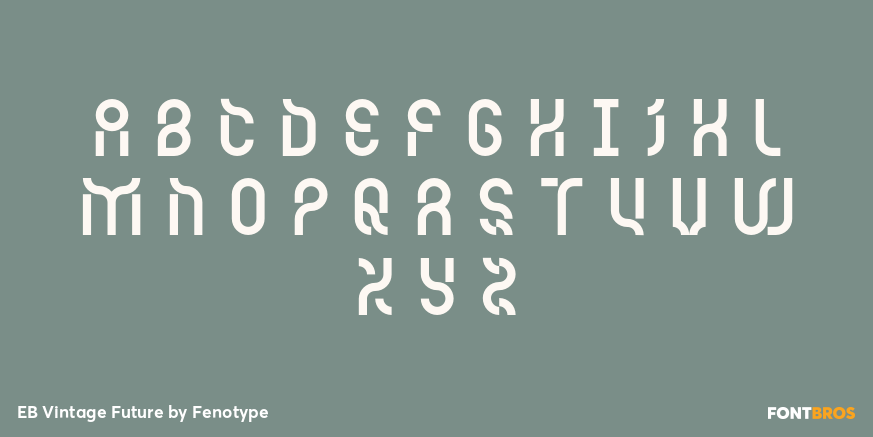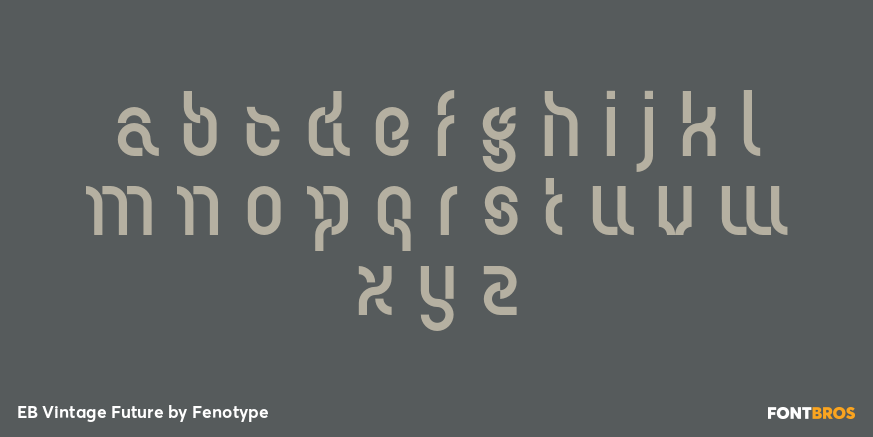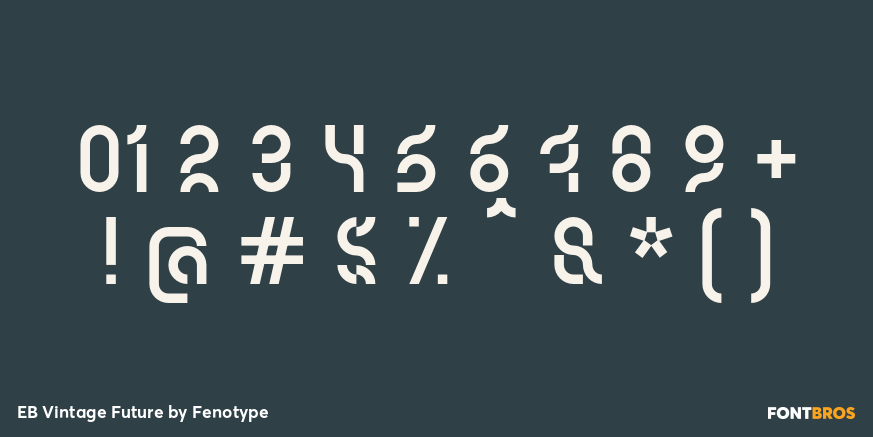
EB Vintage Future
EB Vintage Future is a condensed, geometric sans serif with a sleek, experimental voice. Its monoline construction and tech-inspired styling give it a futuristic edge, while the narrow proportions keep layouts feeling crisp, controlled, and unmistakably modern.
This single-style design is a strong fit for display work that needs a stylized, digital-forward look—think posters, branding, social graphics, packaging, and other headline applications where personality matters. If you want a typeface that feels minimalist yet distinctive, this one brings a clean sci-fi flavor without losing clarity.
Created by Fenotype, it’s an appealing choice for projects that call for something modern, unique, and visually sharp.